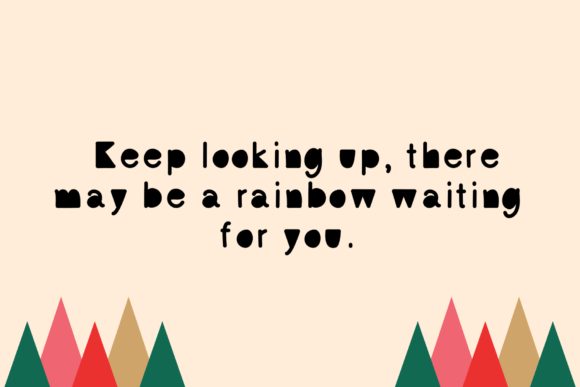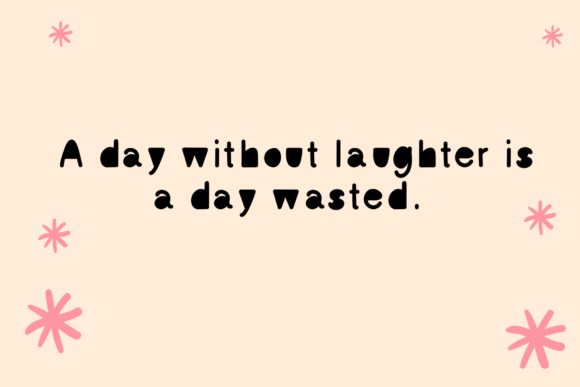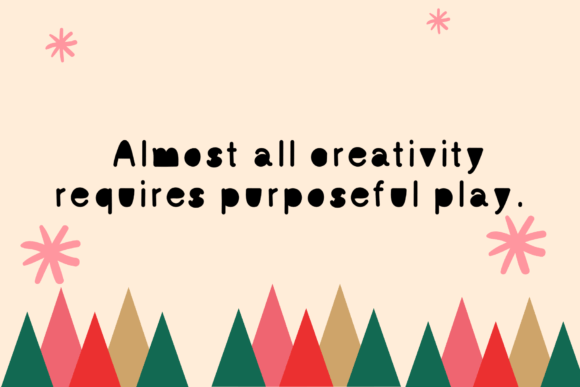
Blocky Font
About Blocky Font
Introducing Blocky Font, a handwritten typeface with a distinctive block-like appearance, making it perfect for creating beautiful content across various themes such as education, craft, or construction. This font brings a unique and bold touch to your projects, allowing you to enhance and elevate your creative endeavors.
The blocky and handwritten style of this font creates a visual appeal that is both playful and versatile. It’s particularly well-suited for projects related to education, where clarity and a touch of creativity are essential. Whether you’re designing educational materials, crafting content for children, or creating engaging visuals for a construction-themed project, Blocky Font adds a unique charm.
The bold and blocky letters make a strong visual impact, ensuring that your content stands out with a distinct and eye-catching aesthetic. This font becomes a valuable addition to your toolkit, providing a fresh and dynamic way to present information and capture the attention of your audience.
In educational contexts, Blocky Font can be used for headers, titles, or as a playful element to make learning materials more engaging. For craft-related projects, the font’s bold and structured style adds a touch of creativity. In construction-themed designs, Blocky Font can be the perfect choice for signage or promotional materials.
Adding Blocky Font to your project is a great way to inject personality and character. Its handwritten and block-like features make it a versatile choice that adapts to a variety of creative themes. Download Blocky Font now and unleash its potential to make your projects great, adding a distinct and memorable touch to your educational, craft, or construction-related content.